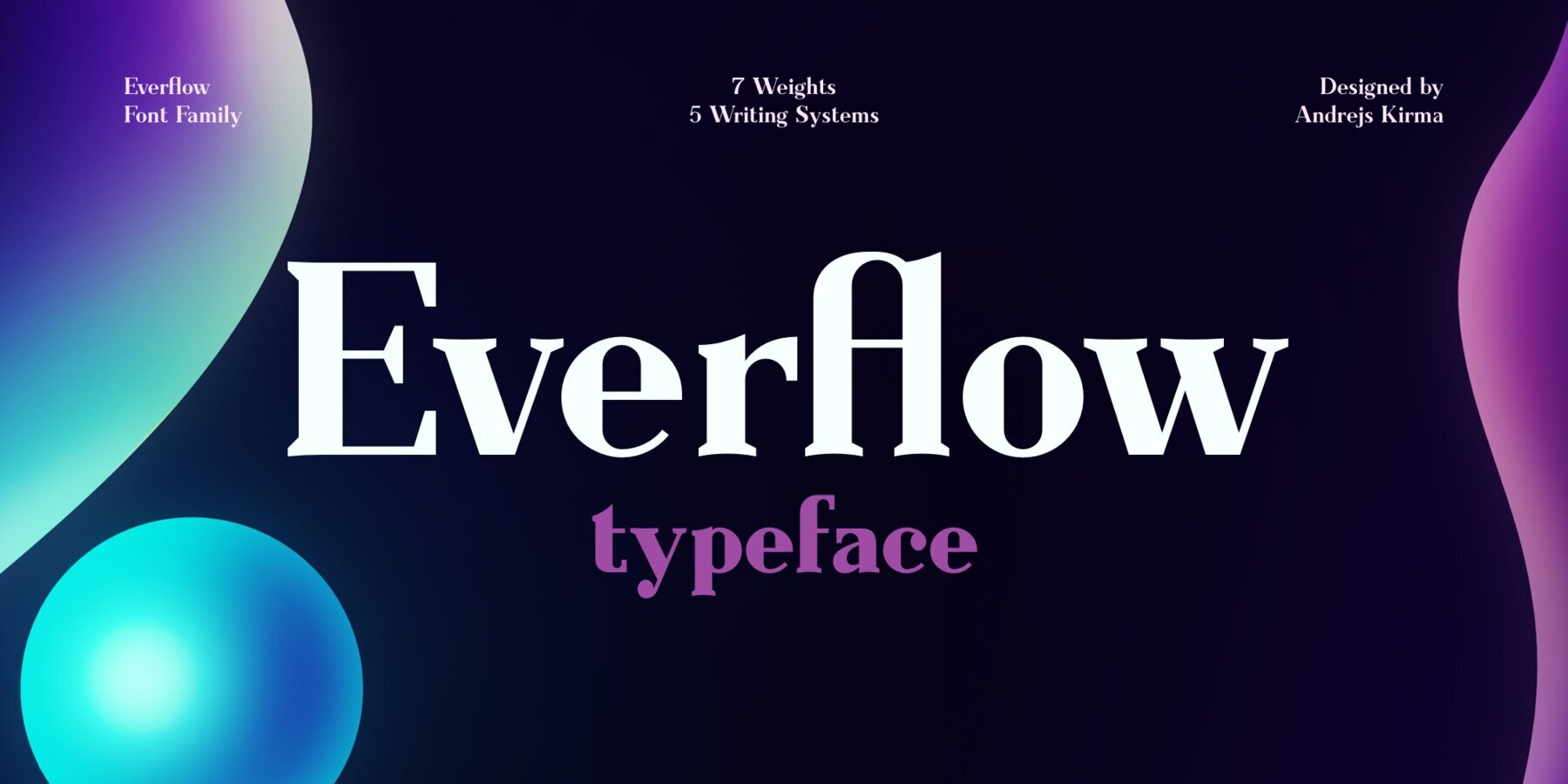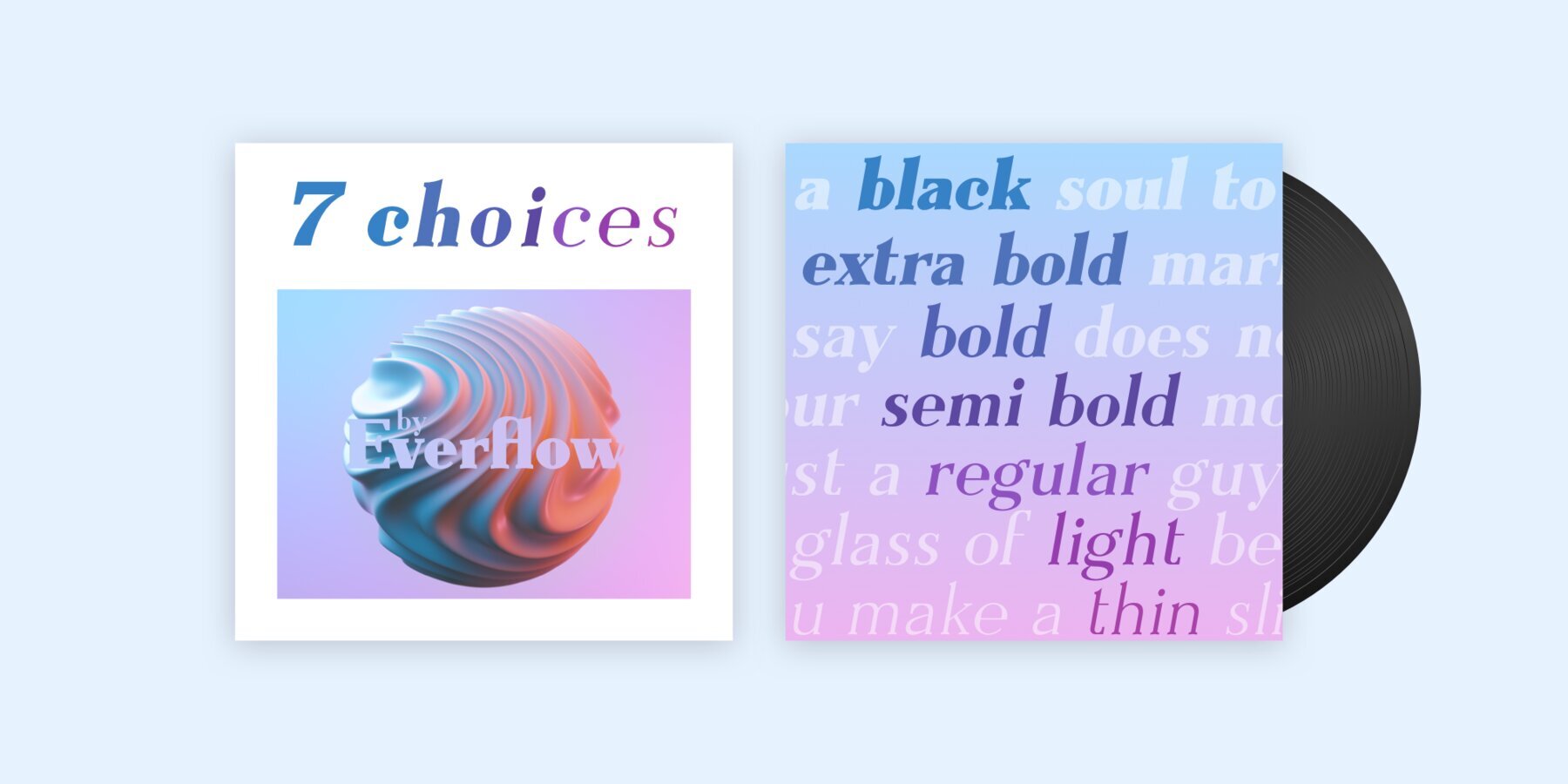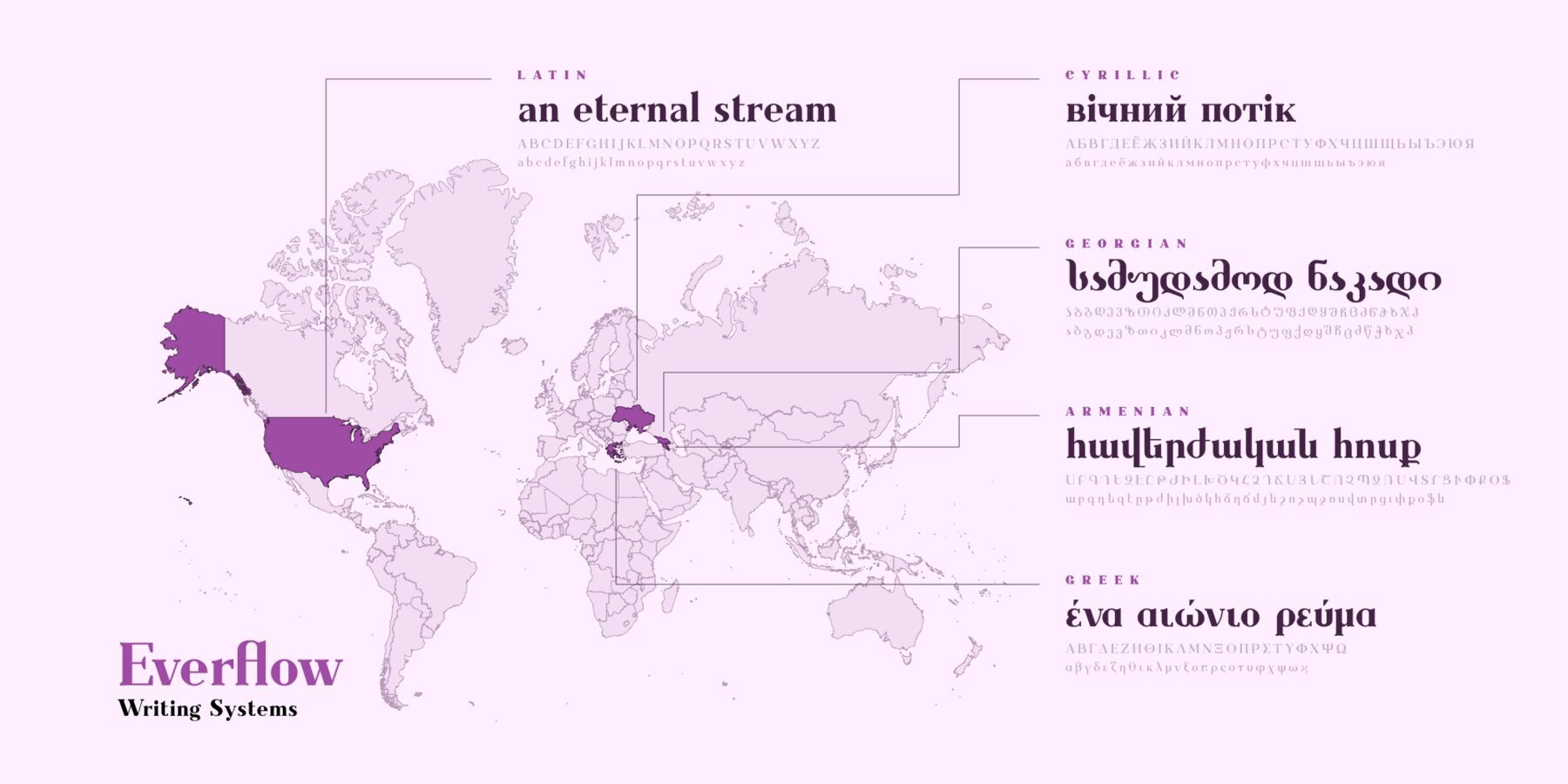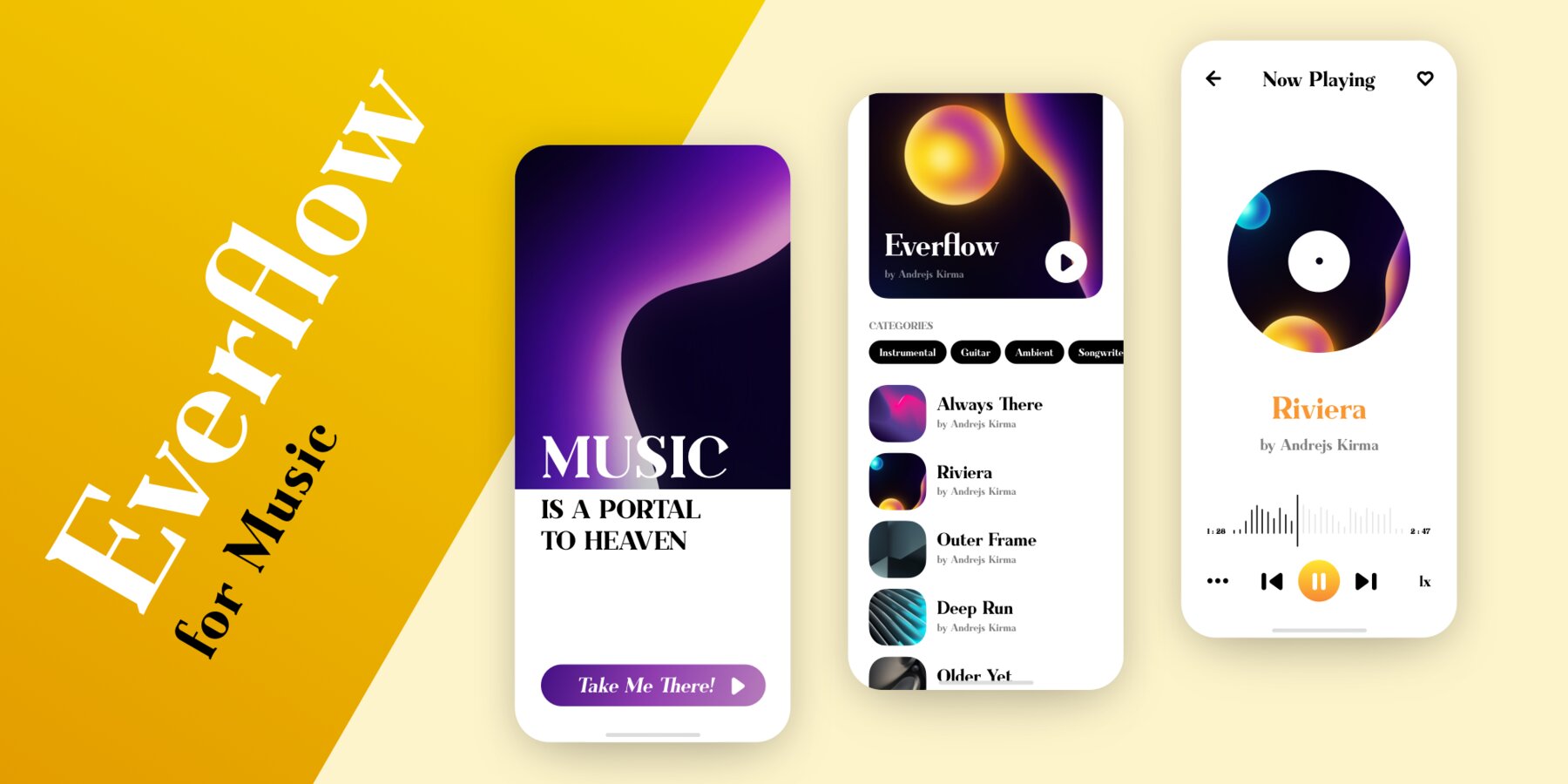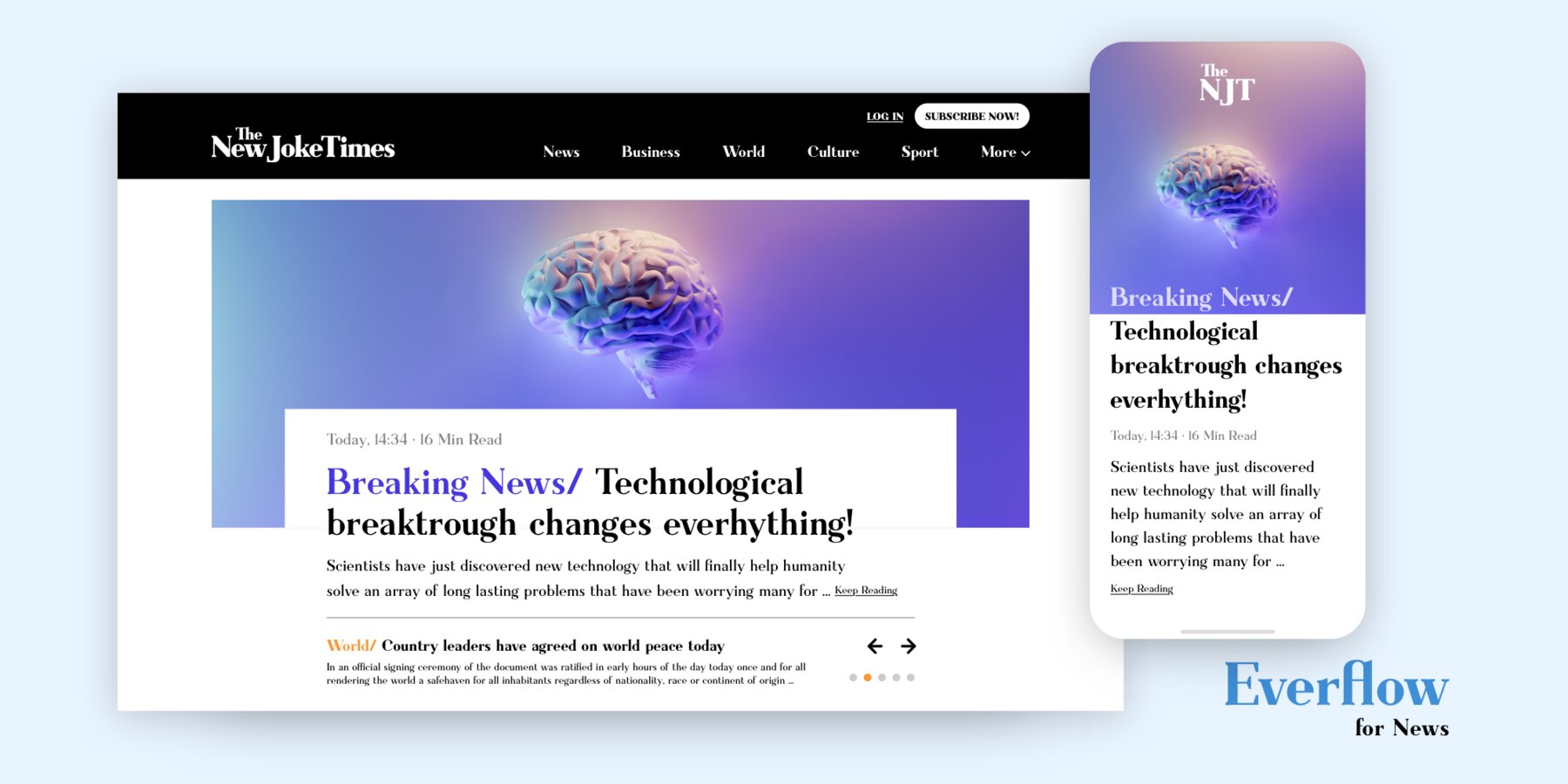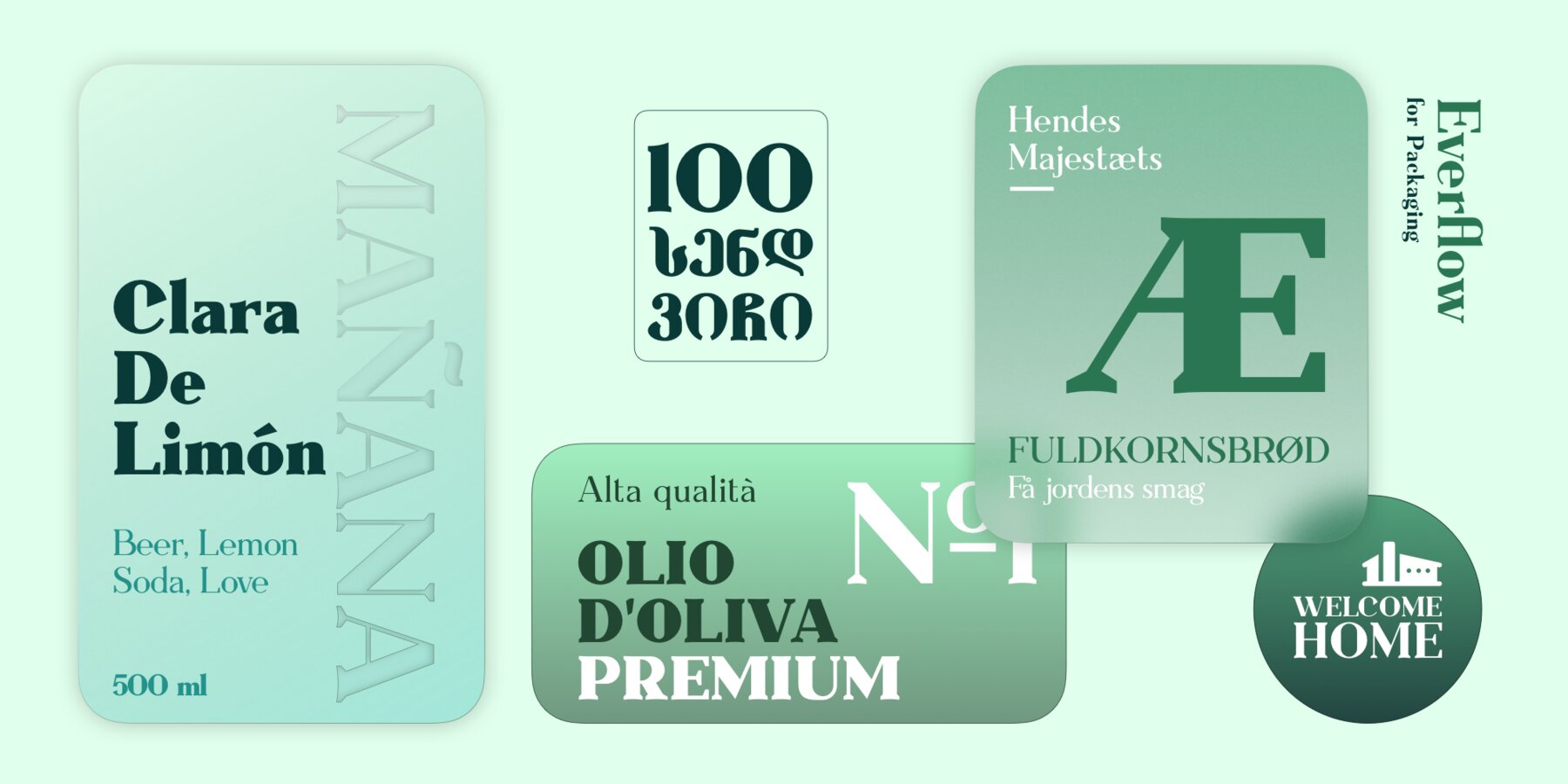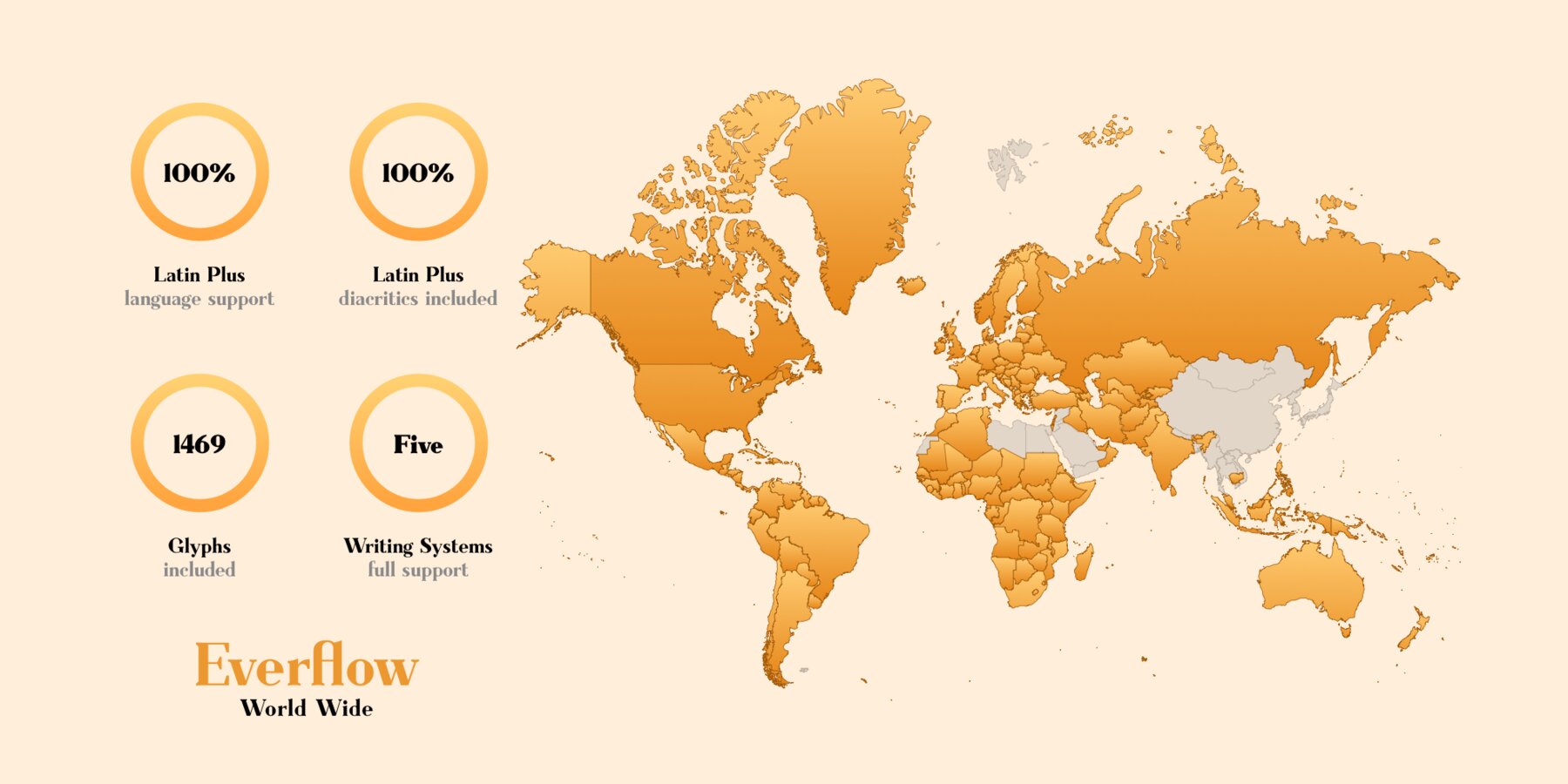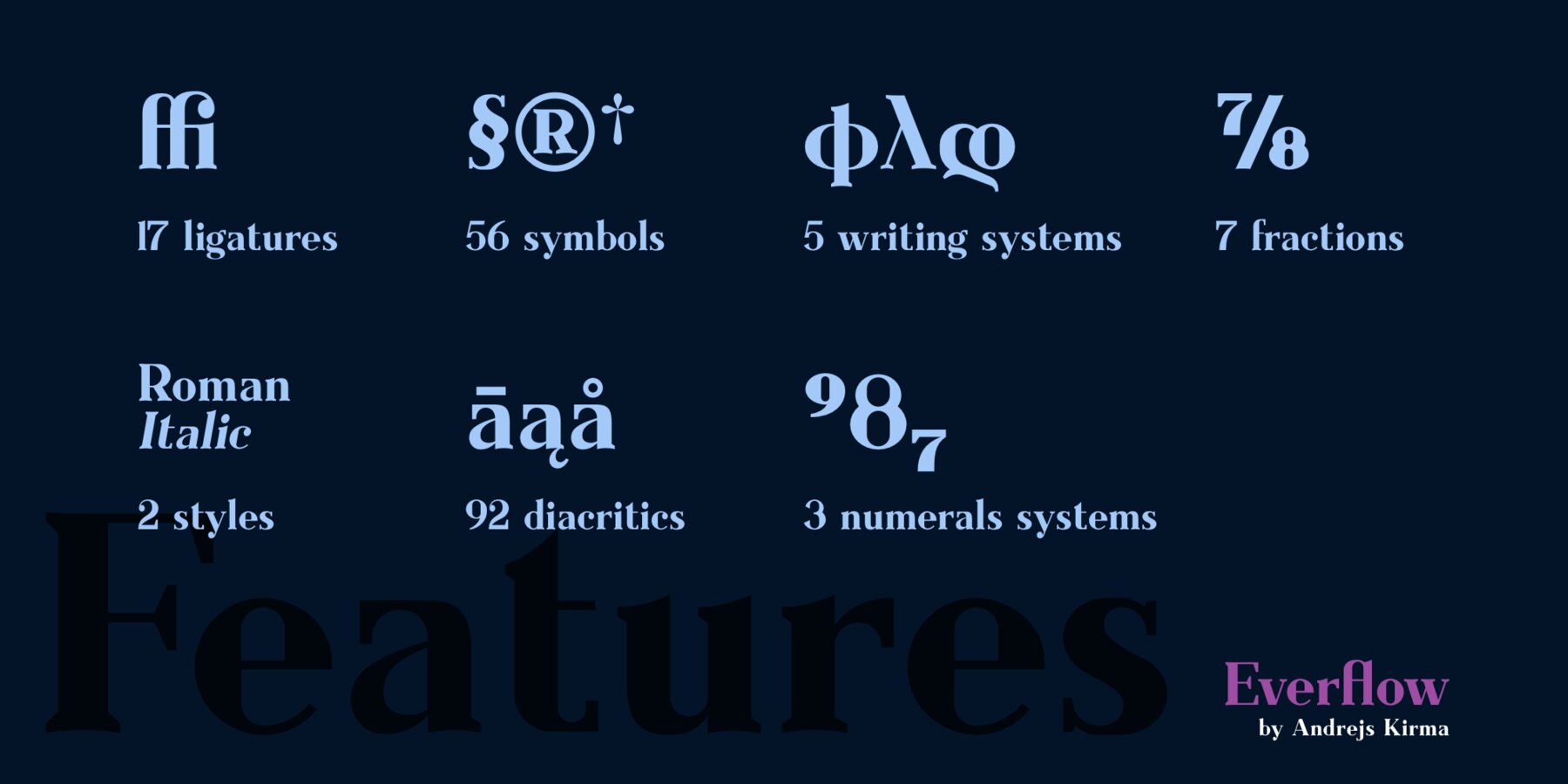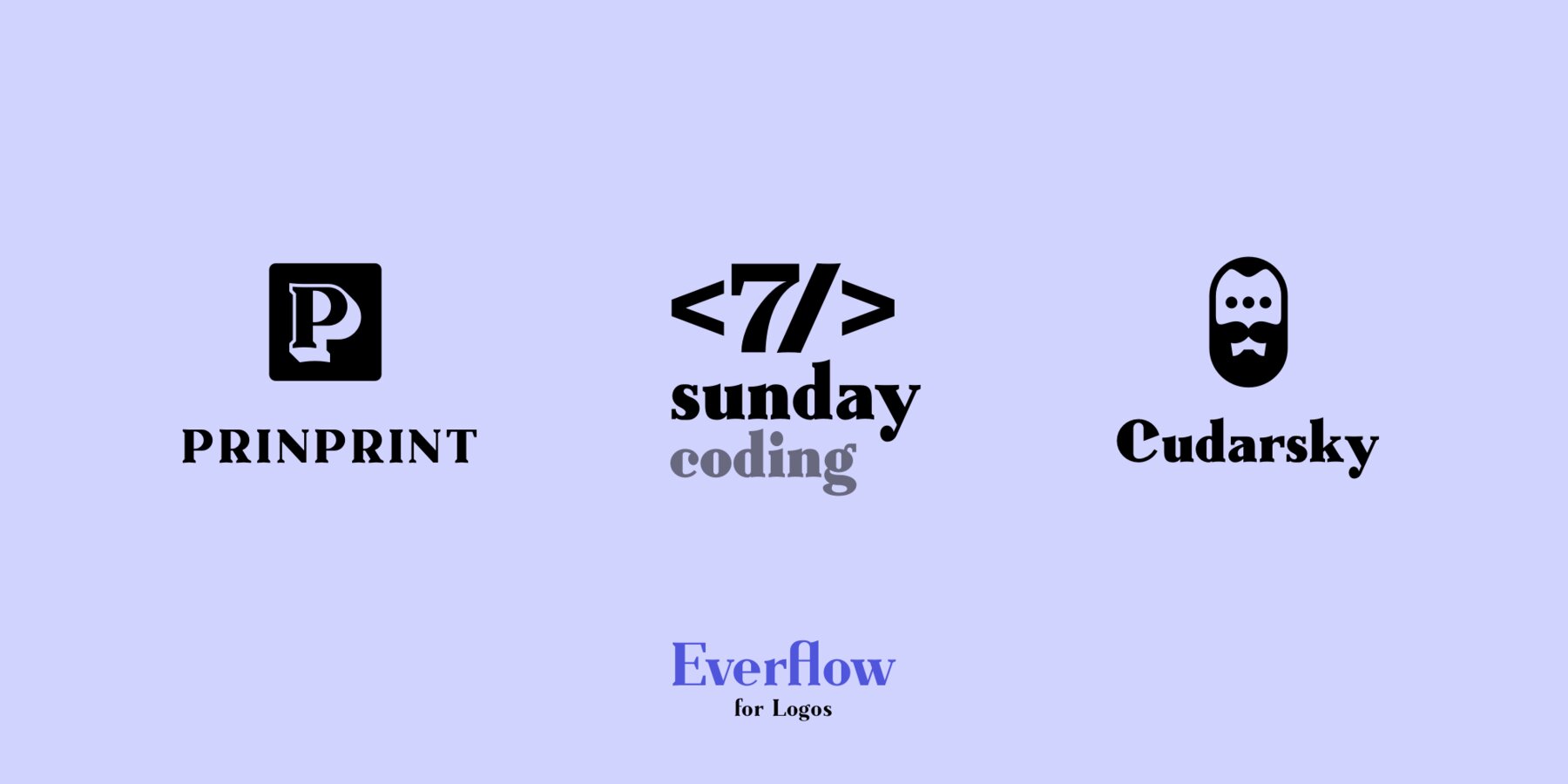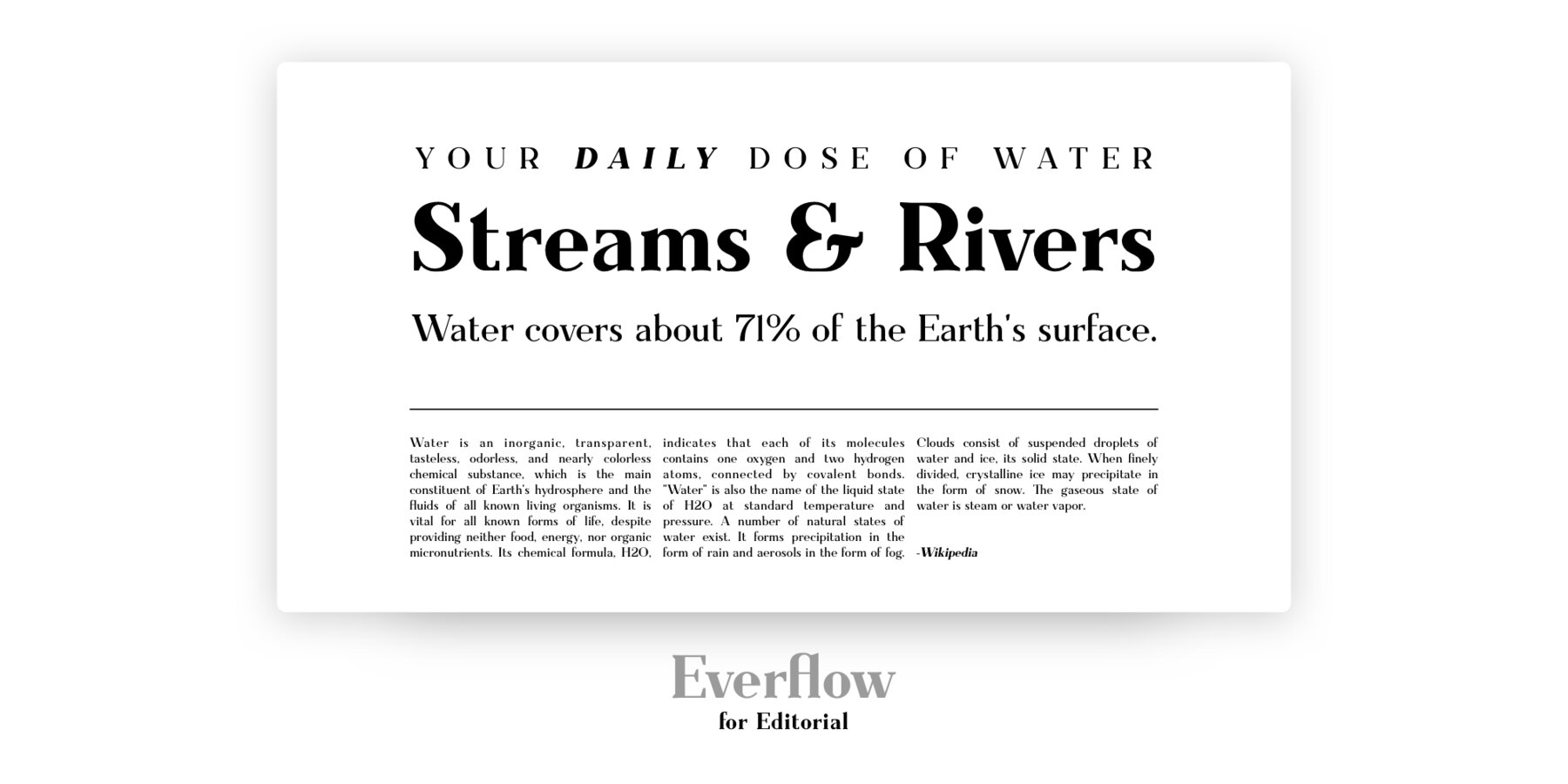
Everflow Font
Everflow is the third typeface family by Andrejs Kirma. Coming from the background of creating a large amount of geometric icons, he set the goal of creating geometric typefaces in a variety of styles and consequently exploring new opportunities in typeface design.
A modern, geometric serif typeface in seven weights Everflow was created to serve the modern designer that appreciates precision, versatility and simplicity.